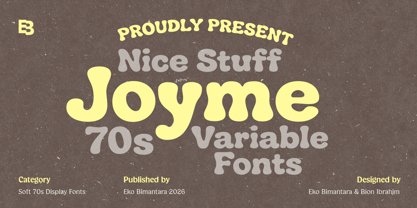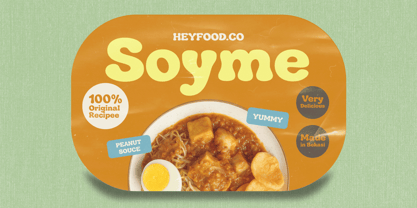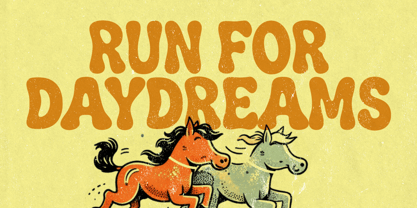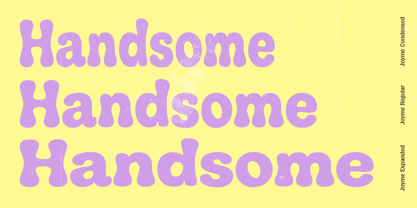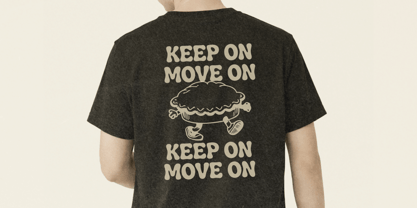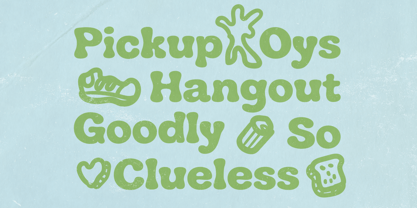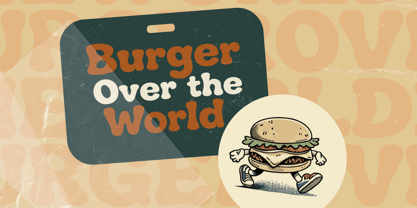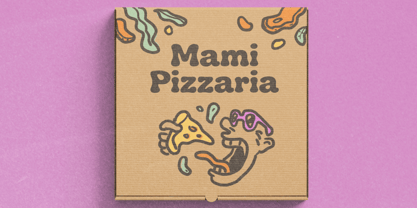
Joyme
by Eko Bimantara
The Joyme Font Family was designed by Eko Bimantara, Biyono Ibrahim and published by Eko Bimantara. Joyme contains 3 styles and family package options. More about this family
Joyme is a retro soft serif display font that captures the warm and playful spirit of 1970s typography. Featuring smooth curves and rounded serif details, it delivers a friendly yet bold visual tone. Joyme comes in three width styles—Condensed, Normal, and Expanded—giving designers flexibility to create strong typographic hierarchy and expressive layouts. It is well suited for branding, 70s-themed designs, food and drink projects, headers, titling, and various creative applications where a nostalgic yet modern feel is desired.
Designers: Eko Bimantara, Biyono Ibrahim
Foundry: Eko Bimantara